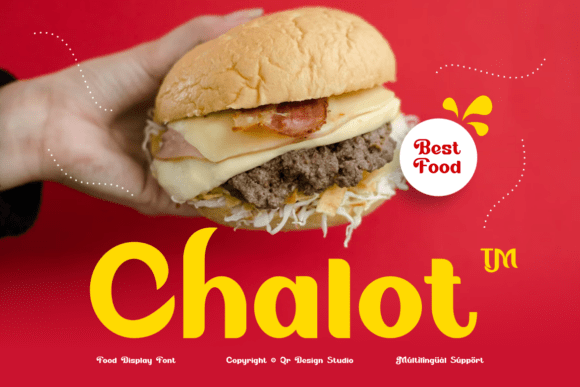
Unleash Your Creativity with the Perfect Display Font
Have you ever been in the midst of a design project, staring at a blank canvas, and suddenly, an idea strikes? The perfect font pops into your mind, elevating your concept from bland to grand. For designers, finding that elusive font can make all the difference between a good design and a great one. That’s where the Chalot Font comes in – a bold and authentic display typeface designed to leave a lasting impression.
This versatile font is perfect for various branding projects, from logos to food designs, and it shines in a wide range of contexts. What makes Chalot Font truly valuable for designers is its ability to add a touch of sophistication and elegance to any project. With its included OTF and TTF files, as well as multilingual support, you can unleash your creativity and bring your designs to life with confidence.
Chalot Font Key Features
• Font Family: Chalot Font is a sans-serif typeface, suitable for modern designs and applications.
• Unique Characteristics: Chalot Font features a unique blend of modern and elegant design elements, making it ideal for corporate branding, digital products, and editorial content.
Chalot Font Review
Chalot Font is an elegant, high-end font designed to evoke sophistication and luxury. One of the things that stands out is its ✨ smooth and connected letterforms ✨, which give it a very human feel. The font is perfect for creating a sense of refinement and high-end style, making it ideal for luxury brands, high-end fashion, and premium products.
Another strength of Chalot Font is its ✨ extensive language support ✨, with over 200 languages supported, making it a great choice for global brands and companies with international reach.
• ⚠️ Limited character set for cursive or script elements ⚠️
• ⚠️ Not ideal for use in small font sizes, as details may get lost ⚠️
Overall, Chalot Font is a solid choice for designers looking to create a luxurious and sophisticated aesthetic. While it may have some limitations, its strengths far outweigh its weaknesses, making it a great addition to any design arsenal.
For best results, use the Chalot Font in headings and titles to add a touch of elegance to your design.
For best results, use the Chalot Font in conjunction with other elegant fonts to create a sophisticated design.
For best results, use the Chalot Font in conjunction with other elegant fonts to create a polished and professional design.
Some common use cases for the Chalot Font include:
• Wedding invitations and stationery
• Business cards and marketing materials
• Editorial and magazine design
Remember to use the Chalot Font sparingly and in conjunction with other fonts to add visual interest and depth to your design.
The Chalot Font is designed to be highly customizable, with a wide range of font weights and styles available. You can also use font editing software to customize the font to suit your specific design needs. However, please note that any modifications to the font should be done in accordance with the licensing terms and conditions.